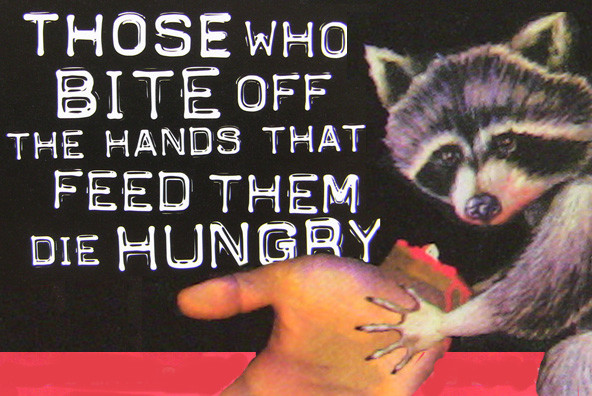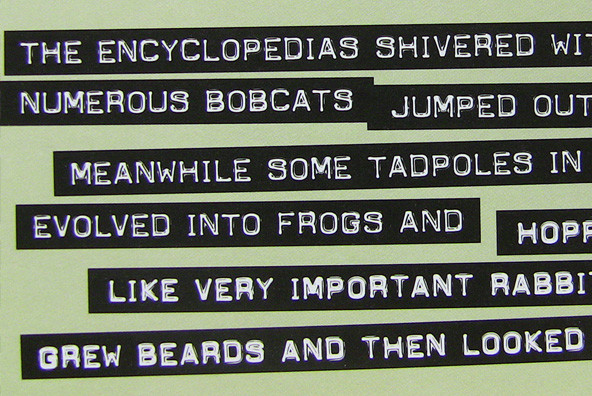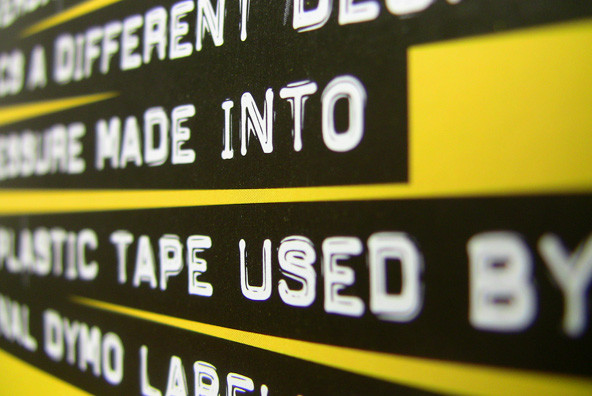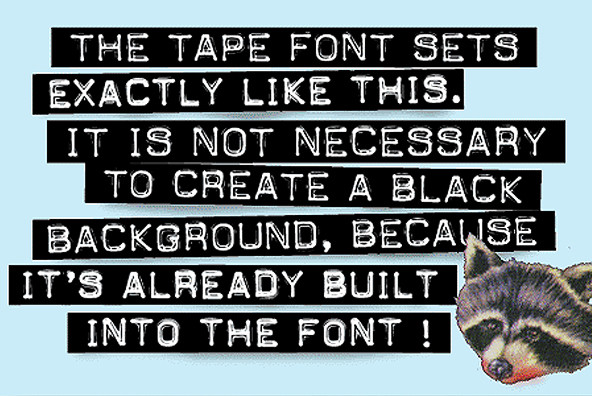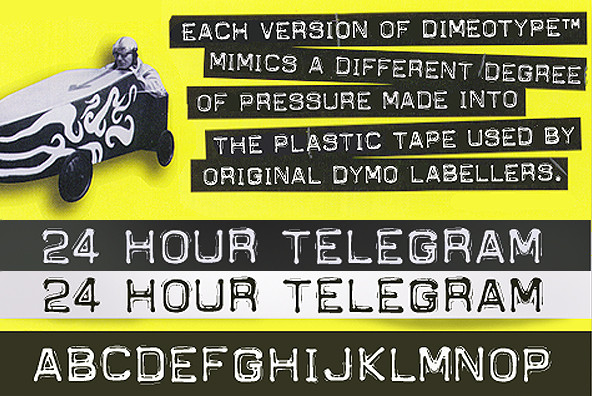
DimeOtype™ is a font based on the impressions made into a plastic ribbon by the old labelling machines, commonly used throughout the 60s and 70s.
THIS IS THE CASE
You will discover that there are no lowercase letters in these fonts. Although some versions of the original labellers did imprint lowercase letters, most were only capable of producing uppercase characters. To give you more variety and alternate characters to choose from, each DimeOtype™ font has TWO versions of the uppercase alphabet (i.e. although the "lowercase" character slots are filled with capital letters, they are all slightly different from their uppercase counterparts). Depending on the words you are setting, you may want to experiment with the different versions to see which combinations will give the most punch to your design.
WHICH VERSIONS DO WE RECOMMEND?
The original, and designer's personal favourite version of DimeOtype™ is the Bold Lowercase. If you want a version that really appears to have that plastic reflective "shine", use the Regular Lowercase.
CREATING THE "TAPE" EFFECT?
For designers using Page Layout software such as QuarkXpress, InDesign or Illustrator, you can create the "tape" with custom widths and jagged edges by drawing boxes, and placing your DimeOtype™ text on top, coloured in white. As the Regular DimeOtype™ fonts all come with International Character sets, you can access all the characters using this technique and adjust the ribbon width to create a proper balance which will accomodate any accented characters.
For users who are using word processing software which may not allow them to produce these kind of effects, a special font called DimeOtype™ Tape has also been included. It sets with clear characters on a ribbon background. Designers using Page Layout software may also want to use this version of the font for the purpose of creating a ribbon where the letterforms are transparent, allowing an underlying image to show through the letter parts of the ribbon.
ABOUT THE "DIMEOTYPE™ TAPE" FONT
(1) Because the ribbon width has been balanced to accommodate only non-accented characters, all of the accented characters and other special characters are missing from this version of the font. All the alphabetical characters, numbers and common punctuation are present, however. If you need other special characters, you will have to manually create your own ribbon using the technique described above, and using the other fonts.
(2) In the "Tape" version, the lowercase alphabetical characters are taken from DimeOtype™ Regular while the uppercase letters come from DimeOtype™ Bold.
(3) You will probably want to begin and end each line you set with a space character, otherwise the first and last letters on each line will appear to be "cut" too close to the edge of the tape. Occasionally, the "space" character does not display or print the blank tape. In such cases, just type ANY special character in its place. The reason the space character does not always work properly is because font software specifications were never set up to accomodate printable characters in what is supposed to be a blank character slot.
CREATIVE USES OF DIMEOTYPE™
As the original tape came out of the labeller in a long ribbon, multiple lines had to be stuck to a "sign" surface manually by the user. The common result was that the strips of tape were not always parallel. When using the DimeOtype™ fonts, you might want to create that element of "realism" to your setting technique by typing each line separately and then randomly rotating them by a degree or two (changing the angles from line to line). If you want to be extra radical, you could rotate each line by several degrees and even overlap the lines in some spots.
COLOUR SELECTION
Most of the original labeller tape was either black, blue, red or dark green, with the resulting imprints showing up in white on the plastic. If you wish to modernize the colour scheme, you might even try colouring the the type, as long as you are careful to maintain a significant contrast between the type and the background ribbon colour.
COMPANION FACES
FULL CHARACTER SET
Each font in the Dime-O-Type™ family has a full character set of 232+ letterforms, with all characters designed in the style of the font.